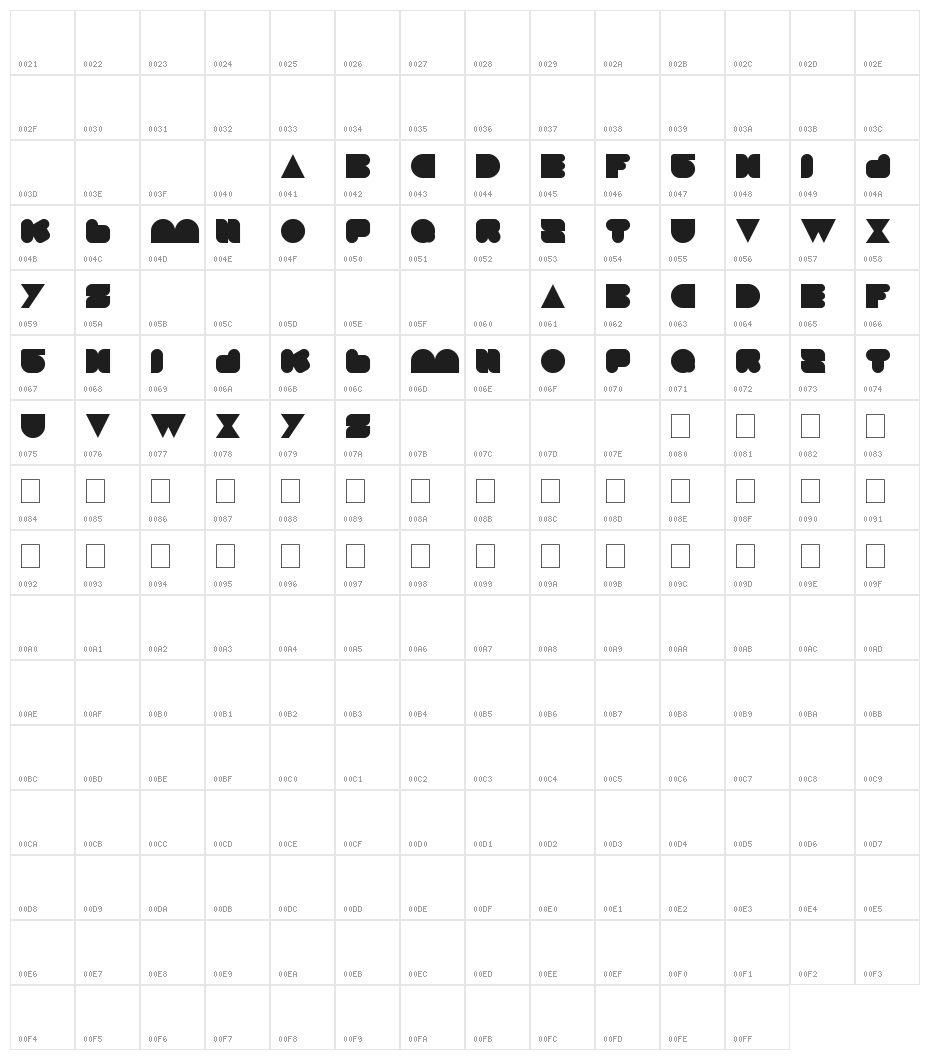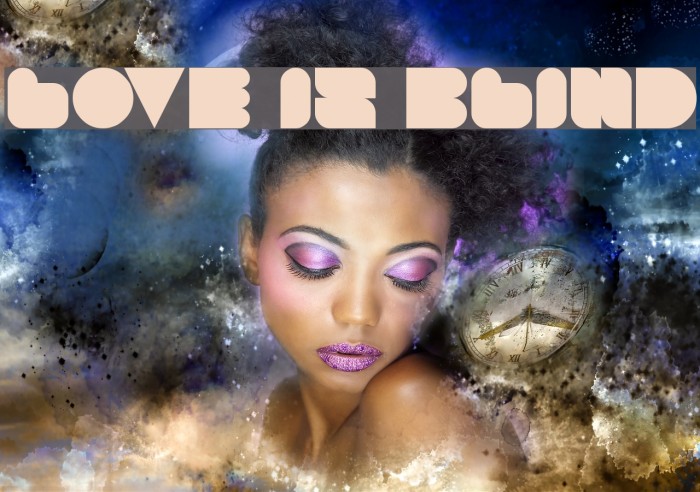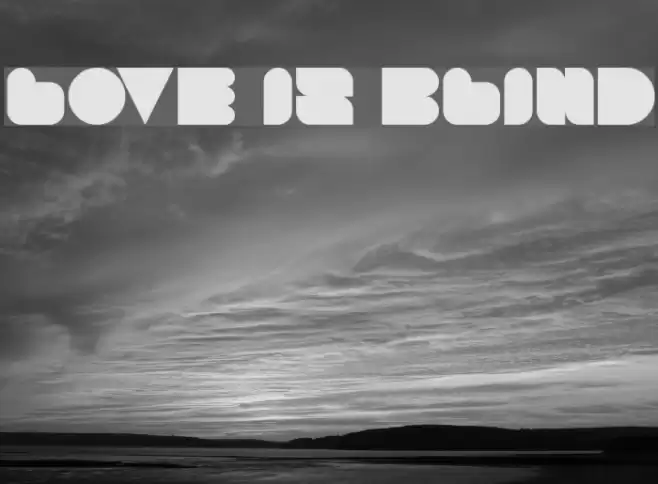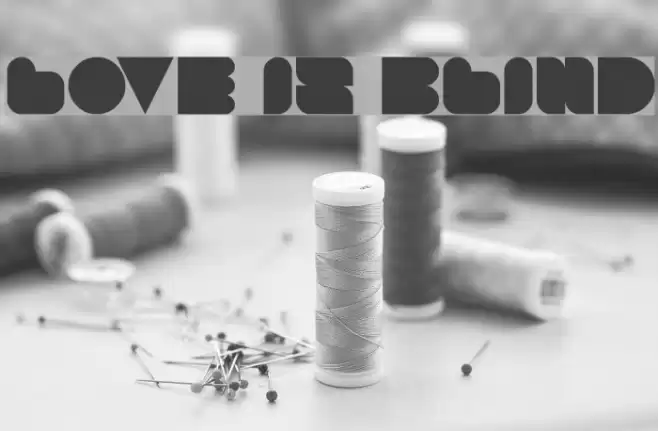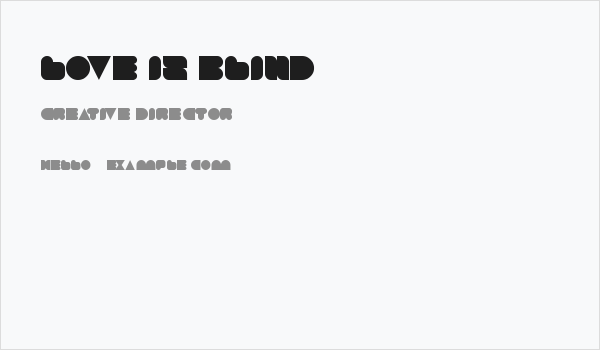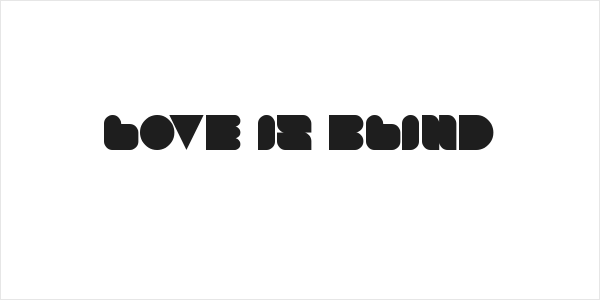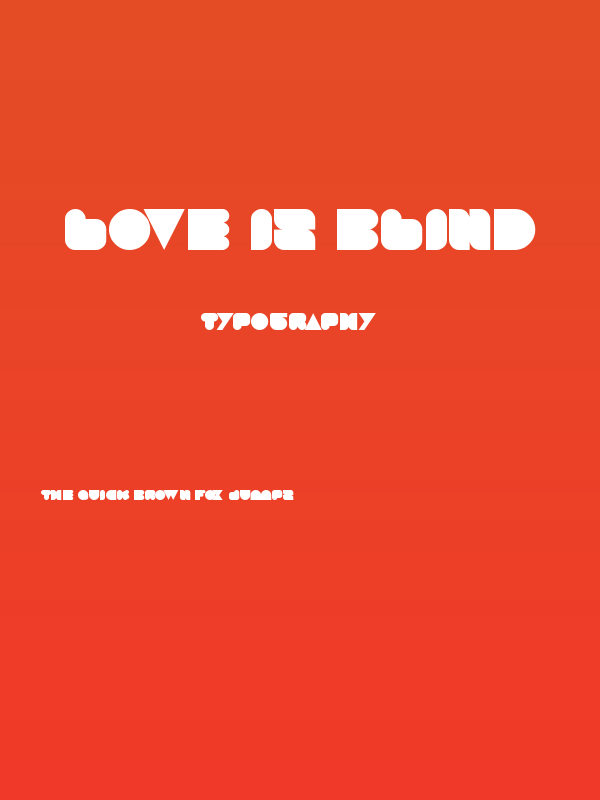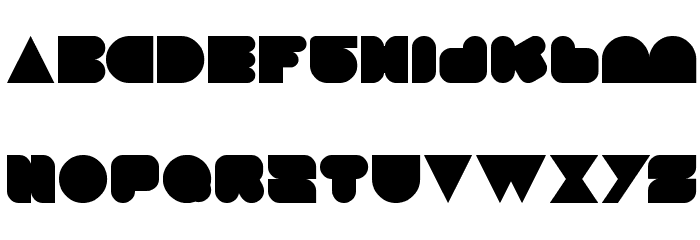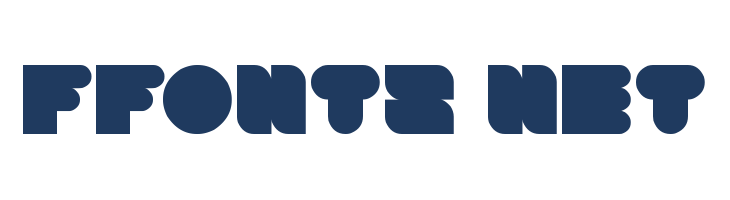
LOVE IS BLIND Font
LOVE IS BLIND Description
This font features a bold and geometric style with a distinctively modern and playful appearance. The characters are constructed with solid, block-like shapes that give them a strong presence. The use of negative space within the letters creates a unique visual effect, making the font stand out. The uppercase letters are particularly striking, with some characters incorporating triangular and circular elements that add to the overall aesthetic. This font is highly decorative and designed to capture attention, making it ideal for creative and artistic projects.